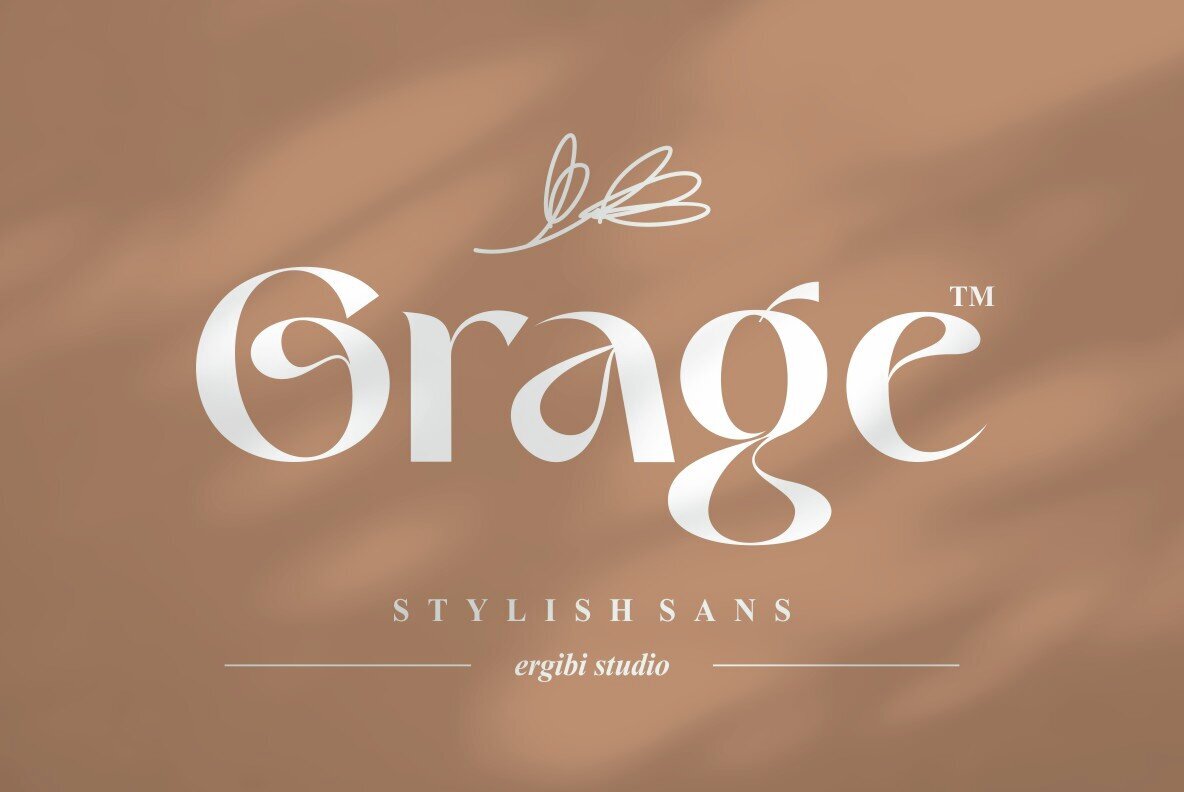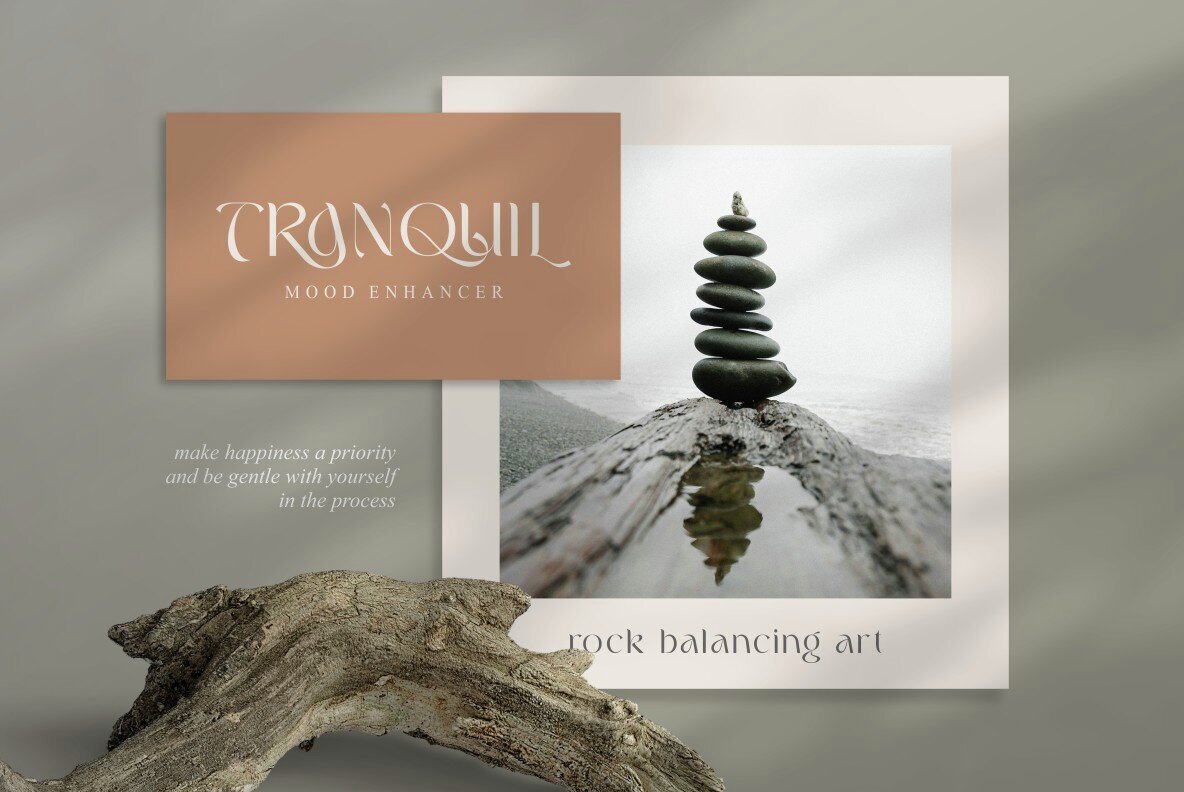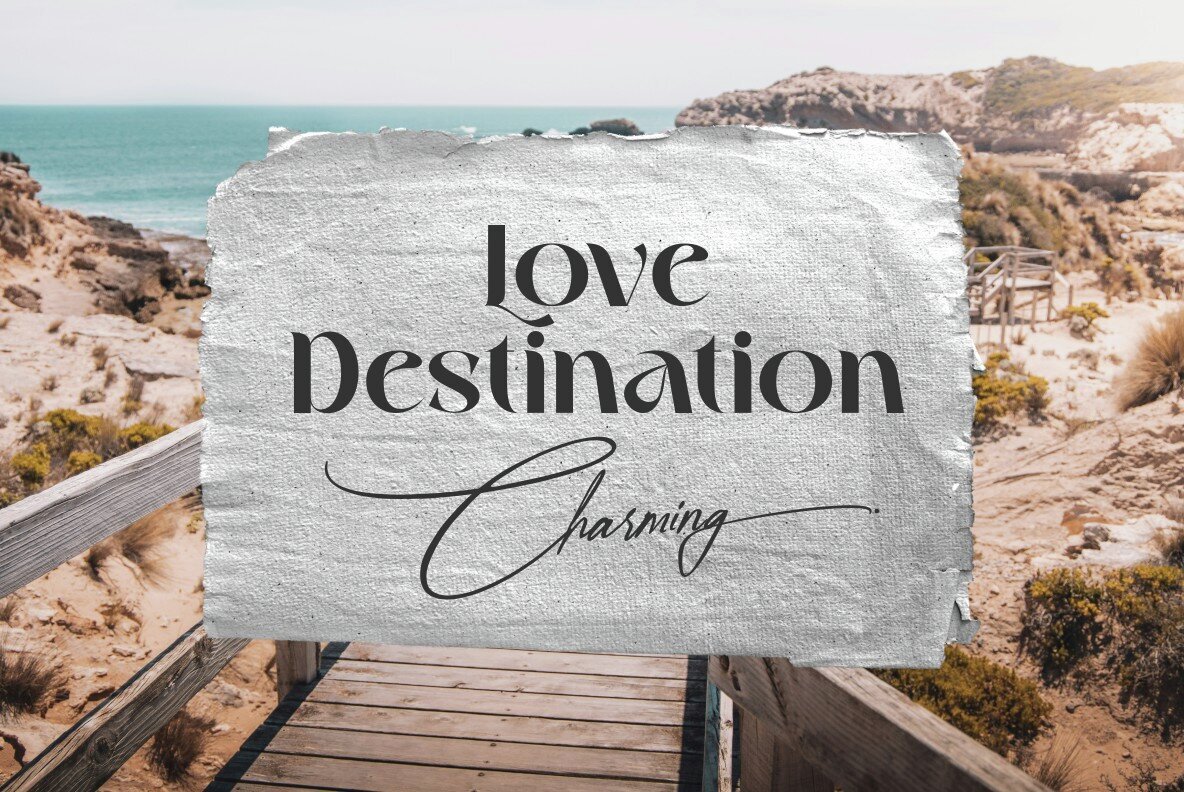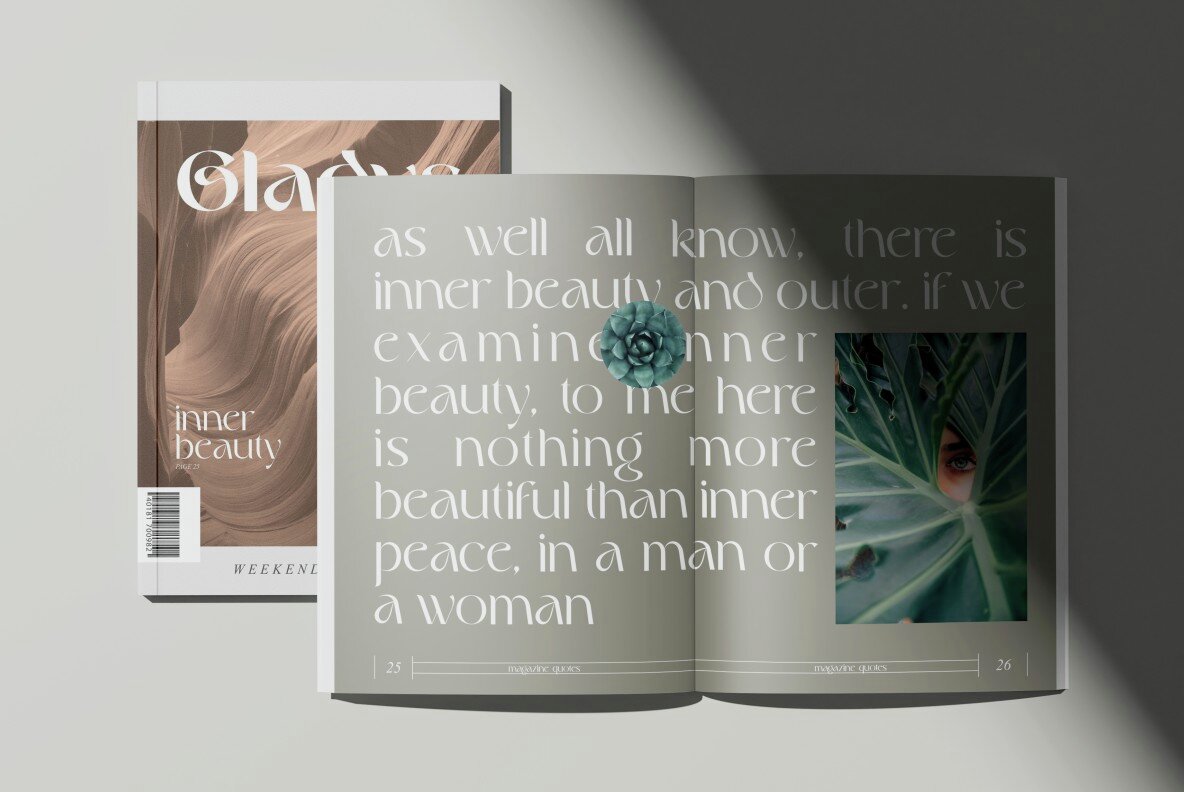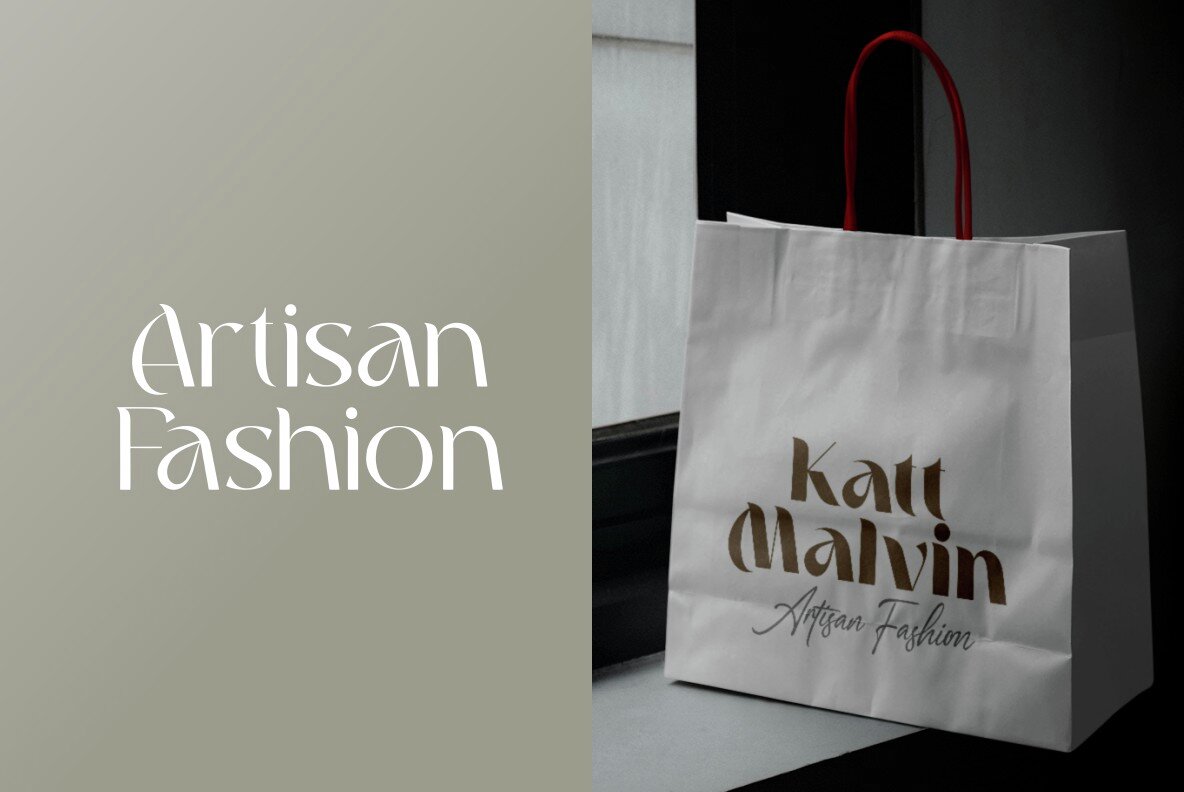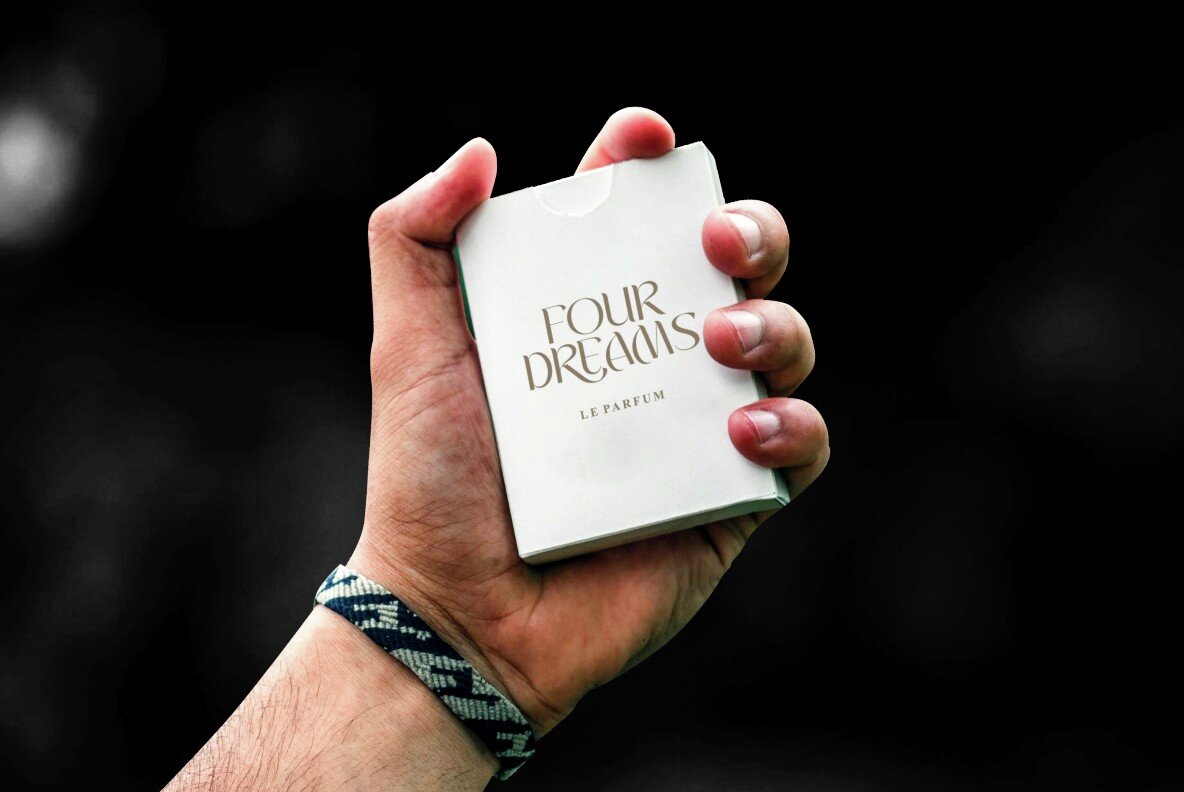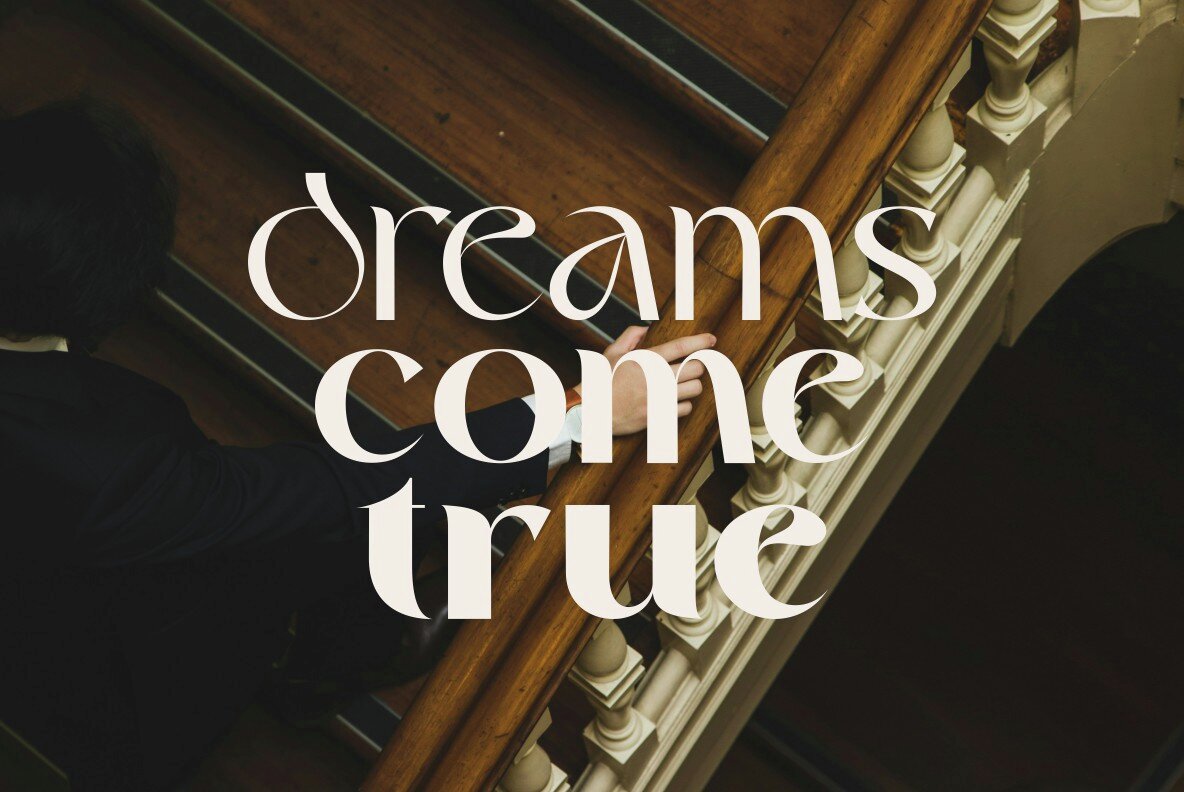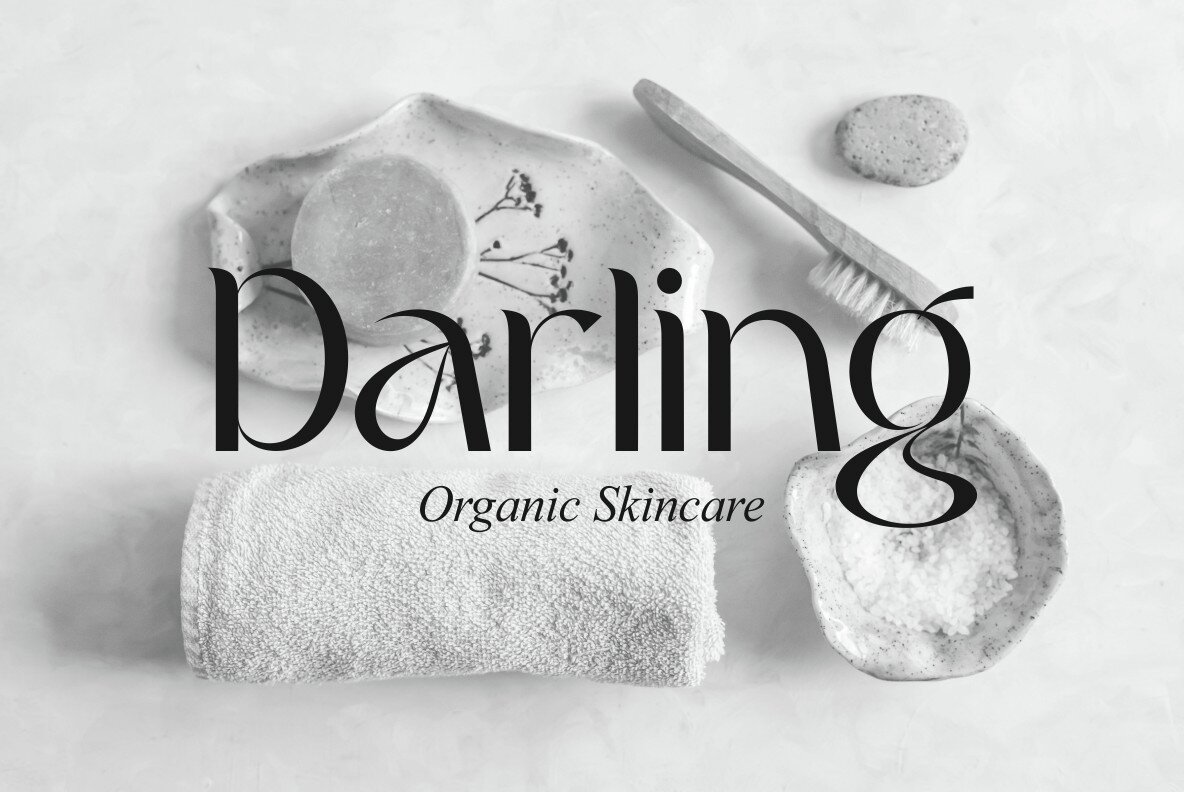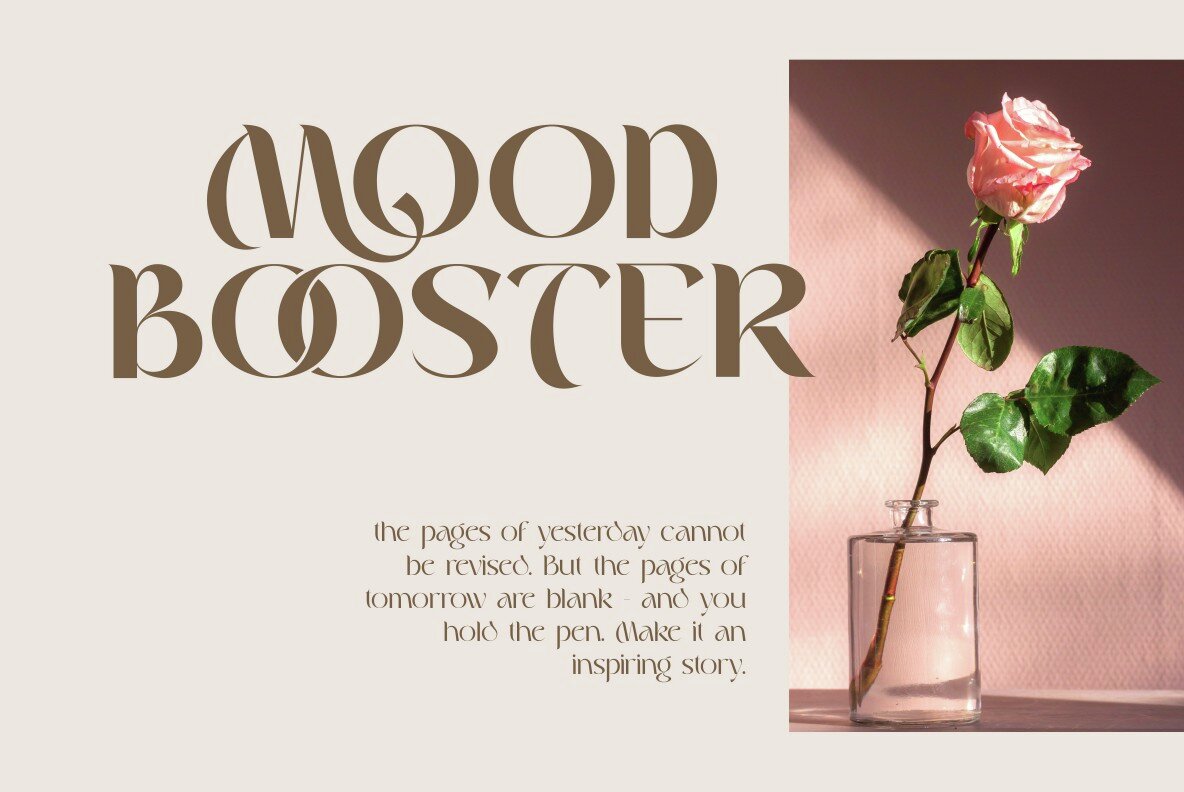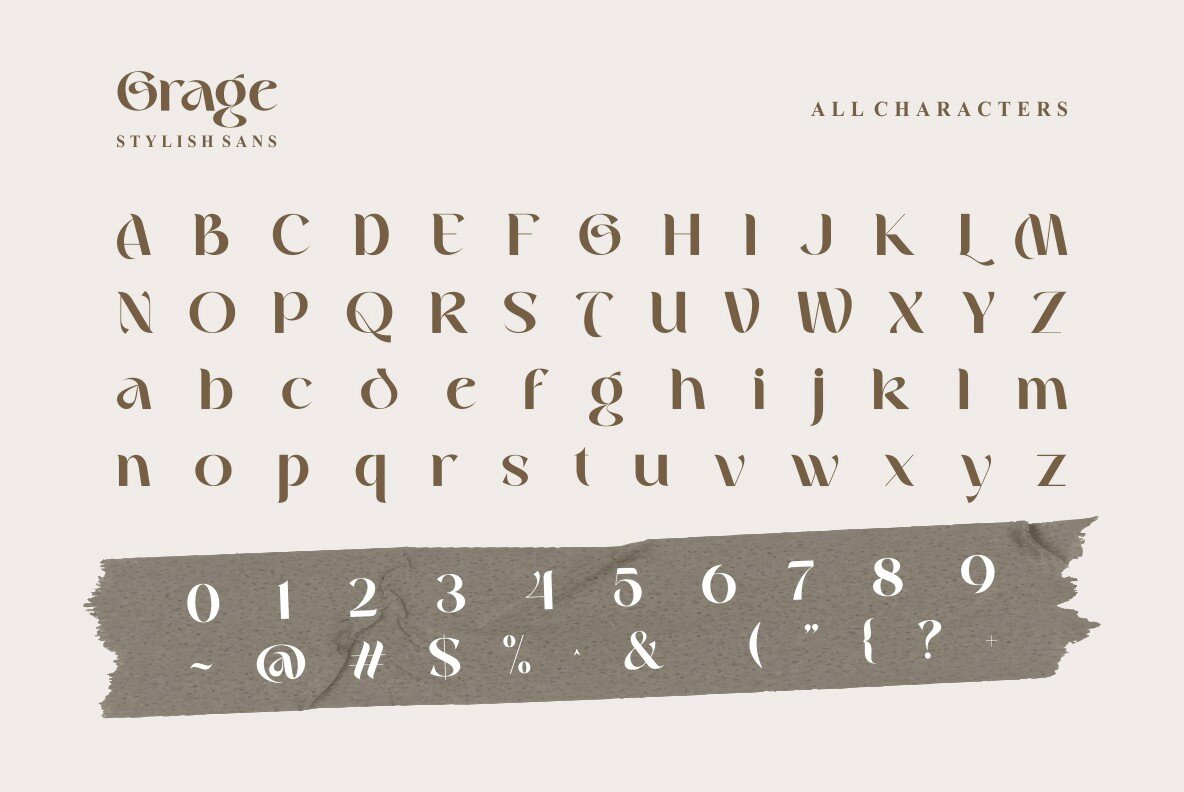
Grage Font
Discover the distinctive charm of Grage Stylish Sans by Ergibi Studio. This font effortlessly combines modern aesthetics with a minimalistic design, making it a standout choice for diverse creative projects. Its unique ligatures add a refreshing twist on traditional serif styles, ensuring your work commands attention.Grage Stylish Sans